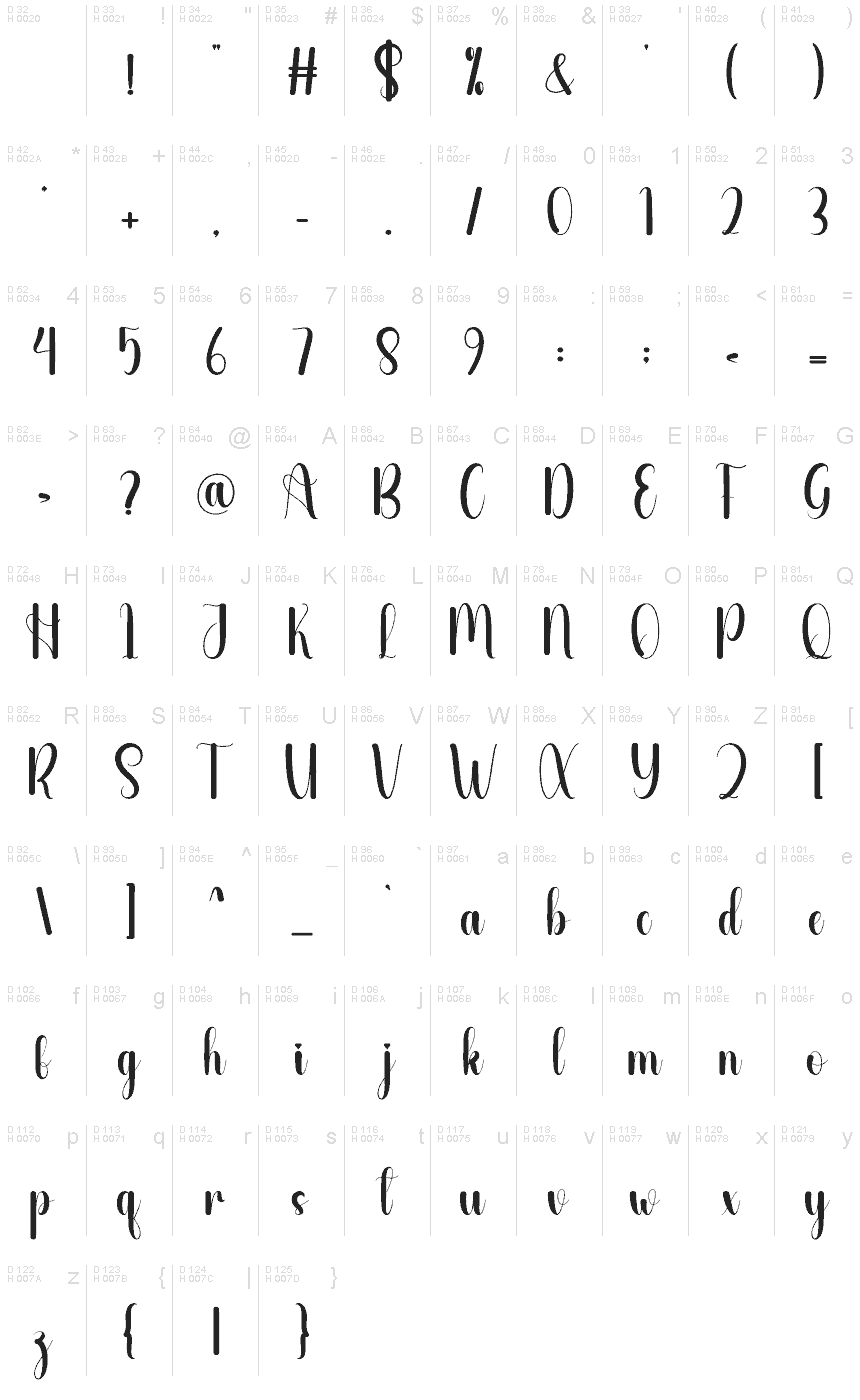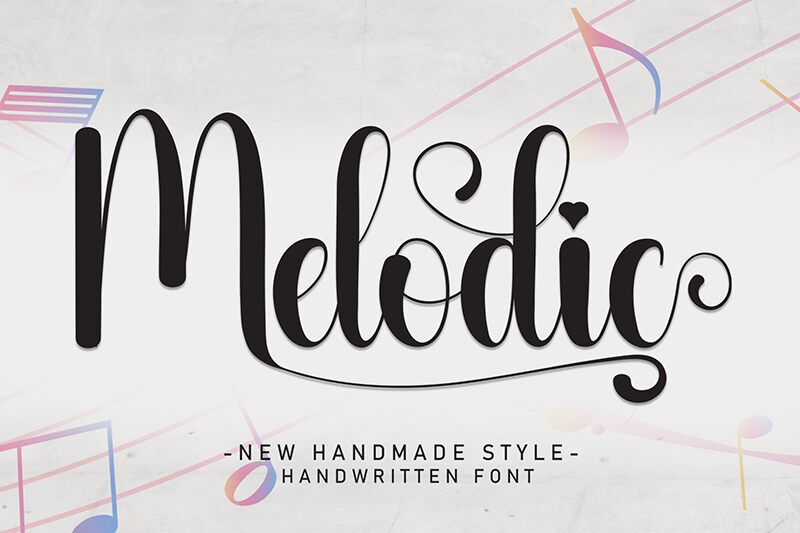
Melodic
Melodic font by Andi Moz is a romantic and expressive free calligraphy font. Decorative curves, whimsical lines, and long decorative swashes are all parts of this beautifully designed typeface, which gives it an elegant modern look. Melodic was inspired by musical notes on a sheet played through a piano where the symmetry of notes lay on a line.
Use in cards, invitations, clothing tags, ads for cosmetics and beauty businesses, novel titling, packaging designs for perfume bottles or boxes (or other types), branding projects (logotypes), photo captions/edits (social media posts especially), business cards or even in printed magazines.